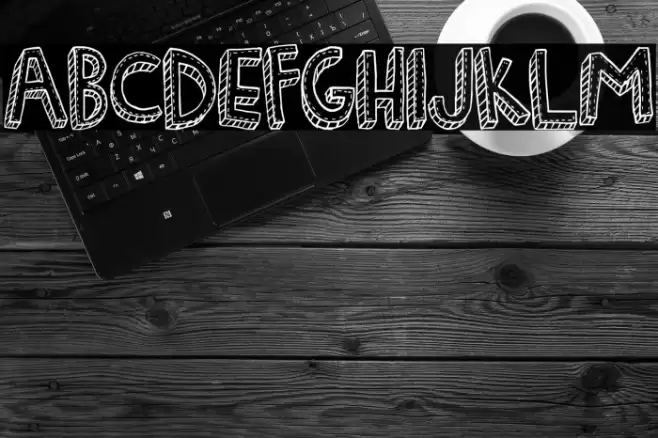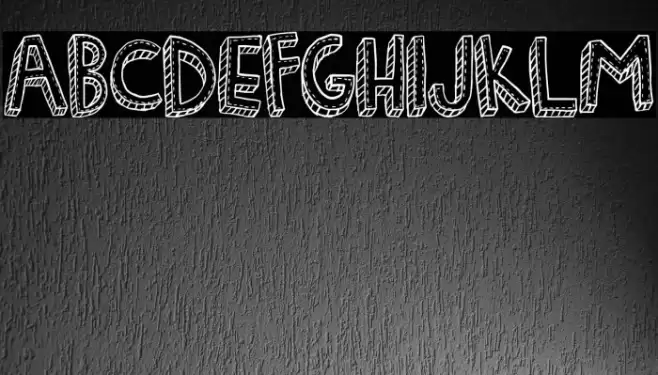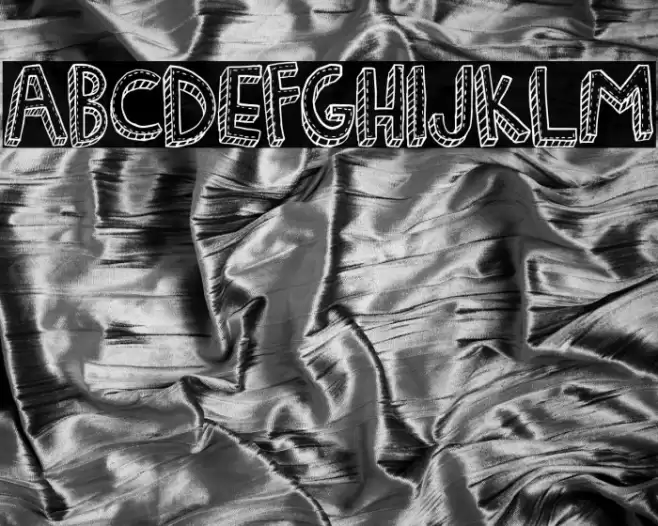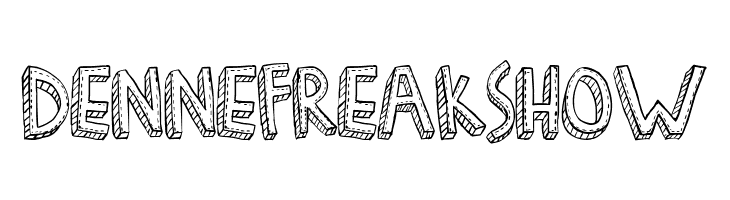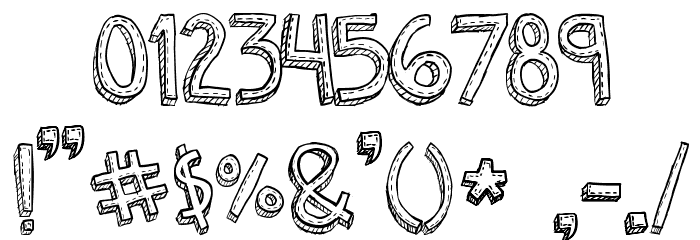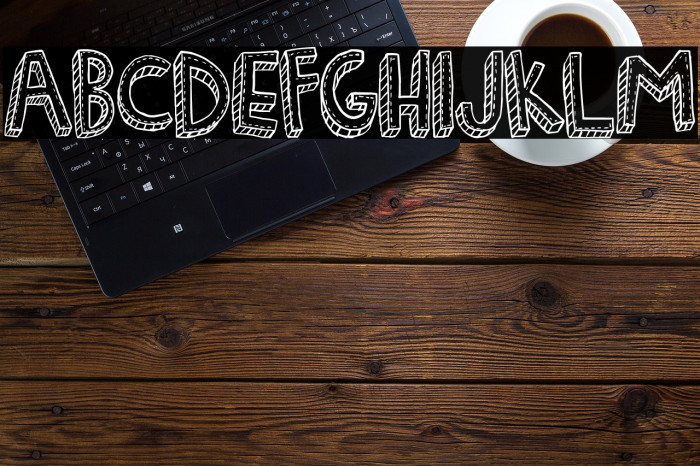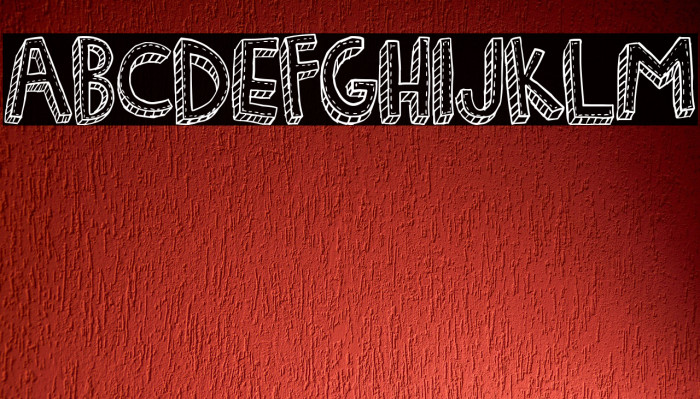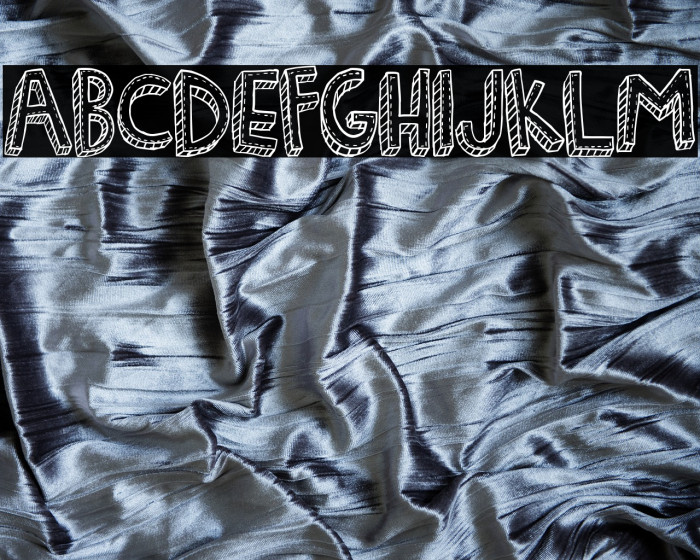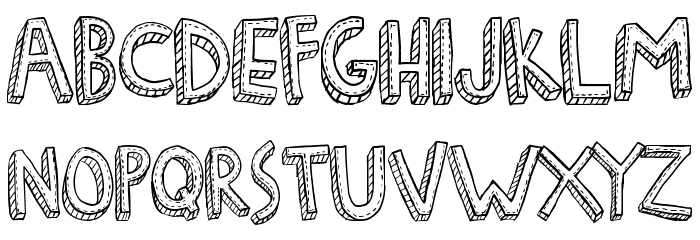
Denne Freakshow Font
Denne Freakshow Description
This font features a playful, hand-drawn style with a three-dimensional effect. Each character is outlined with a bold, sketch-like texture, giving it a whimsical and artistic appearance. The letters are uppercase and lowercase, with numbers and a variety of special characters included. The design is reminiscent of doodles or comic book lettering, making it ideal for creative and informal projects. The font's unique style is characterized by its irregular lines and shading, which add depth and personality to each character.
A playful, hand-drawn font with a 3D sketch effect from Cartoon fonts.
- Proposed Projects: Ideal for comic books, children's books, posters, and playful branding.